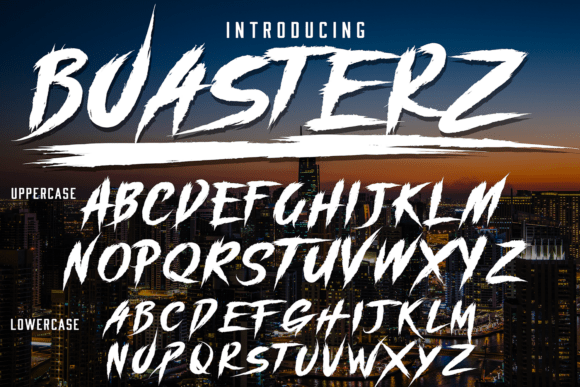
Get Ready to Unleash Your Inner Rebel with the Boasterz Font
Have you ever been stuck on a project, searching for the perfect font to give your message the edge it needs? You know, that moment when you’re scrolling through font libraries, and suddenly, you stumble upon something that just makes you want to shout from the rooftops?
That’s exactly what happens when you discover the Boasterz Font – a high-energy brush typeface with rugged edges and expressive strokes. This dynamic font is designed to give your branding, posters, and titles a bold, grunge-inspired look that’s perfect for making a statement. With its hand-drawn texture, the Boasterz Font adds power and movement to your message, making it a valuable tool for designers looking to take their work to the next level.
Key Features of Boasterz Font
- Unique Characteristics: Boasterz Font features a bold, playful, and energetic design, with a unique blend of geometric and handwritten elements, making it perfect for creating eye-catching headlines and titles.
- Font Family: Boasterz Font is a sans-serif font family with multiple weights, including light, regular, bold, and extra bold, allowing for a wide range of typographic expressions.
Boasterz Font Review
As a designer, I was excited to dive into the Boasterz Font and see what it had to offer. Here’s my honest take on this font.
- Unique and playful style: Boasterz Font has a quirky and eye-catching aesthetic that’s perfect for adding a touch of whimsy to designs.
- Wide range of weights: The font comes in a variety of weights, making it easy to customize and find the perfect fit for your project.
- Excellent legibility: Despite its playful nature, Boasterz Font is surprisingly easy to read, even at smaller font sizes.
- Limited versatility: While Boasterz Font is great for playful and casual designs, it may not be the best choice for more formal or professional projects.
- Potential for overuse: The font’s quirky style can be overwhelming if used too extensively, so be sure to balance it with other fonts and design elements.
Overall, I think Boasterz Font is a fun and versatile addition to any designer’s toolkit. While it may not be the best choice for every project, it’s definitely worth considering for designs that need a playful and eye-catching touch.
Boasterz Font is ideal for creating bold, attention-grabbing headlines and titles. Use it to add a touch of sophistication and elegance to your designs. Some common use cases include:
– Creating eye-catching social media graphics
– Designing promotional materials, such as posters and flyers
– Adding a touch of personality to your website or blog